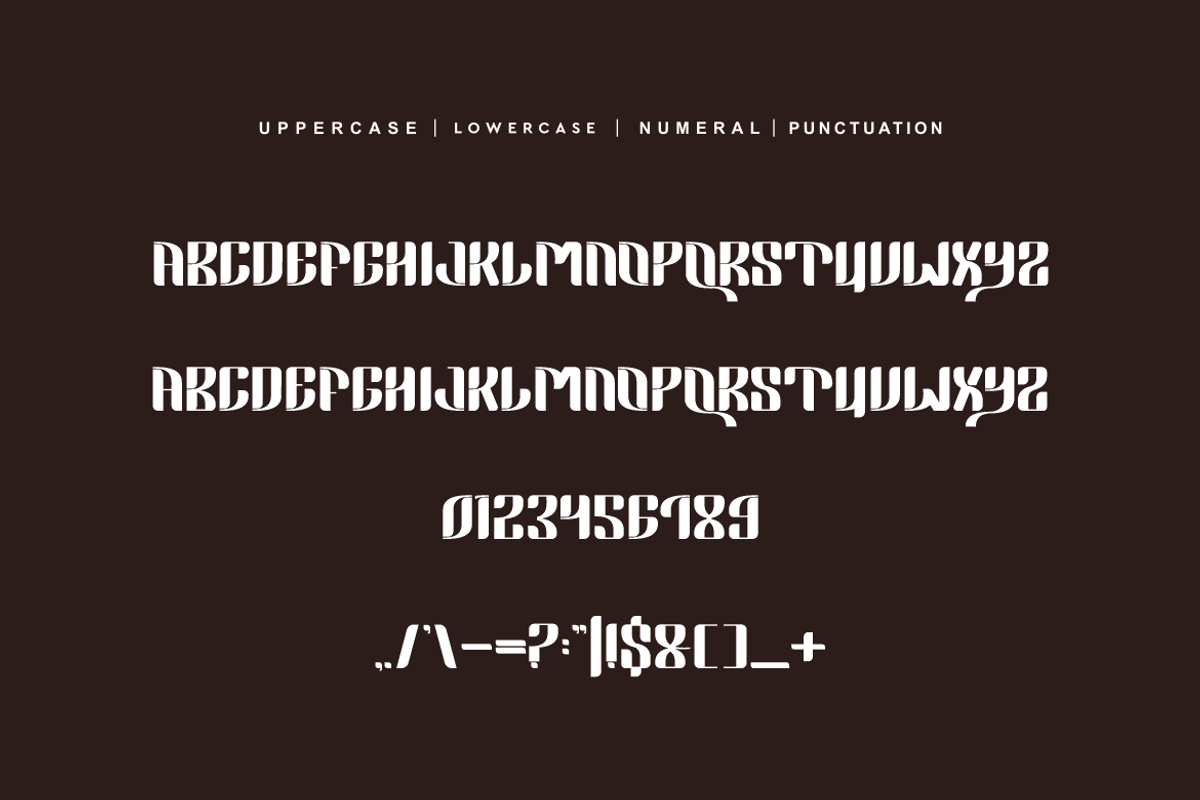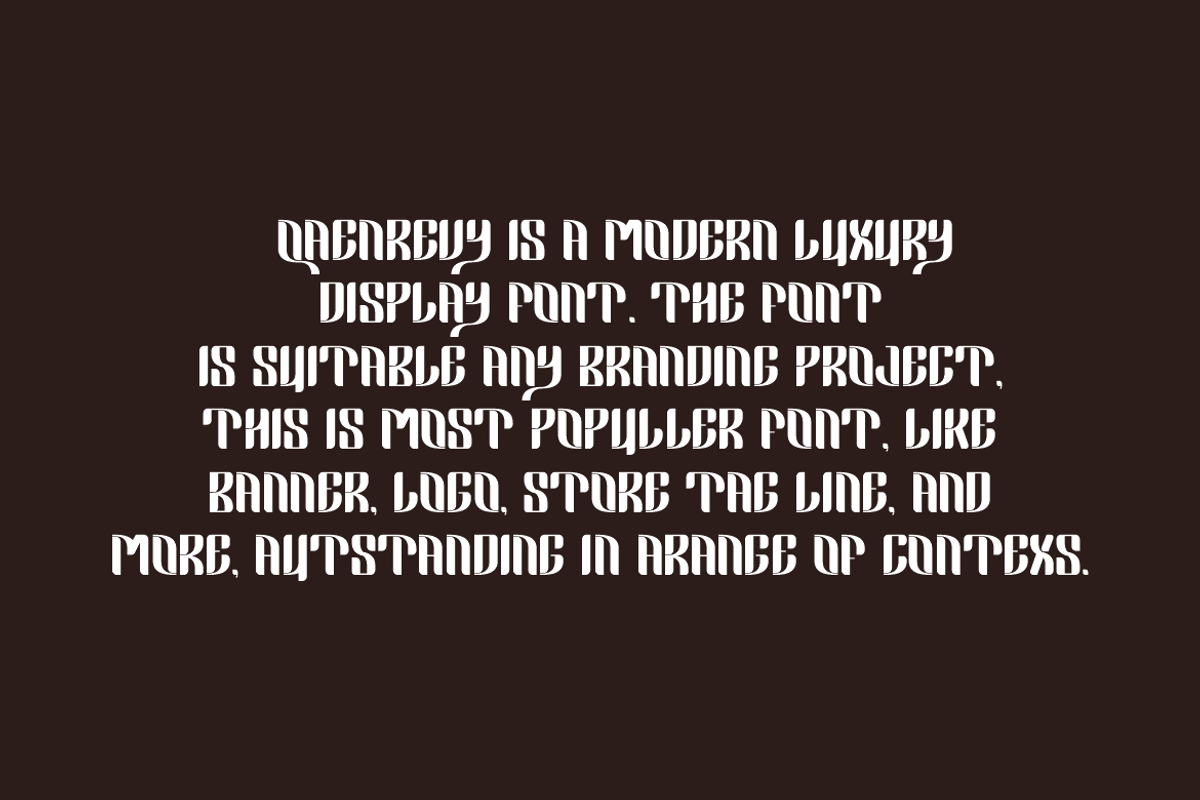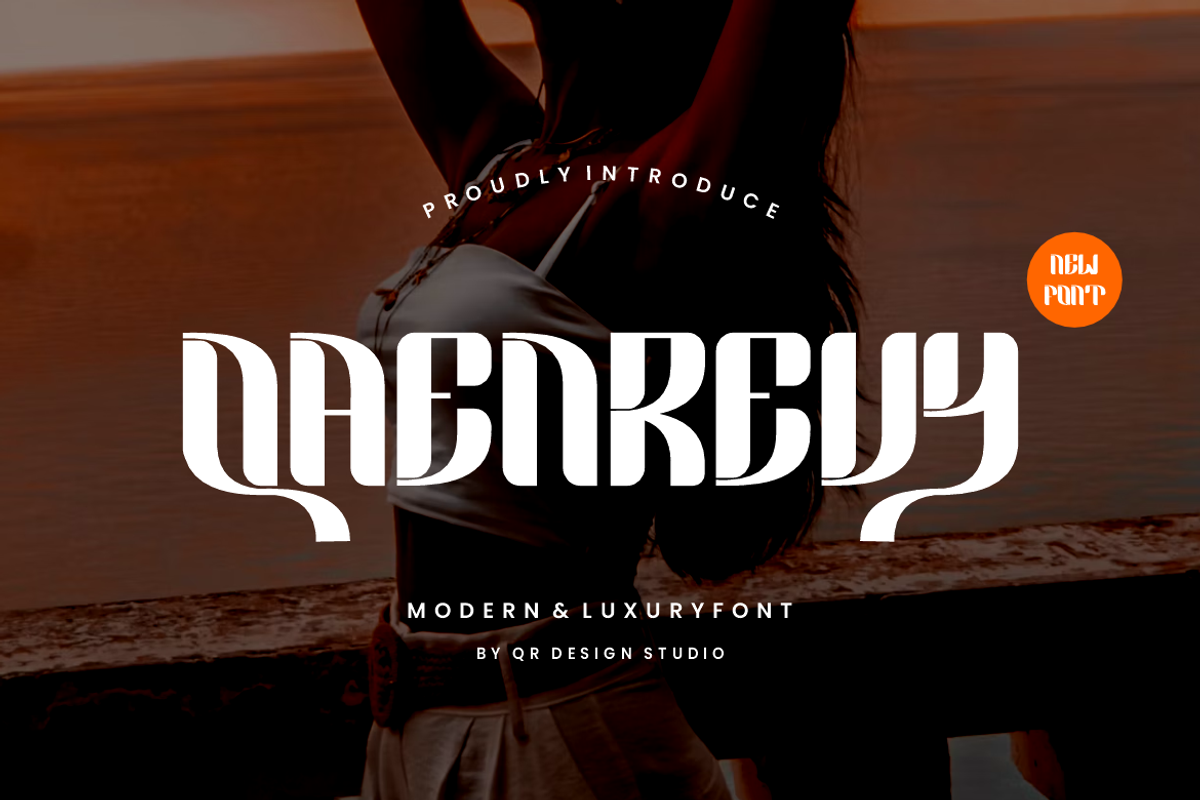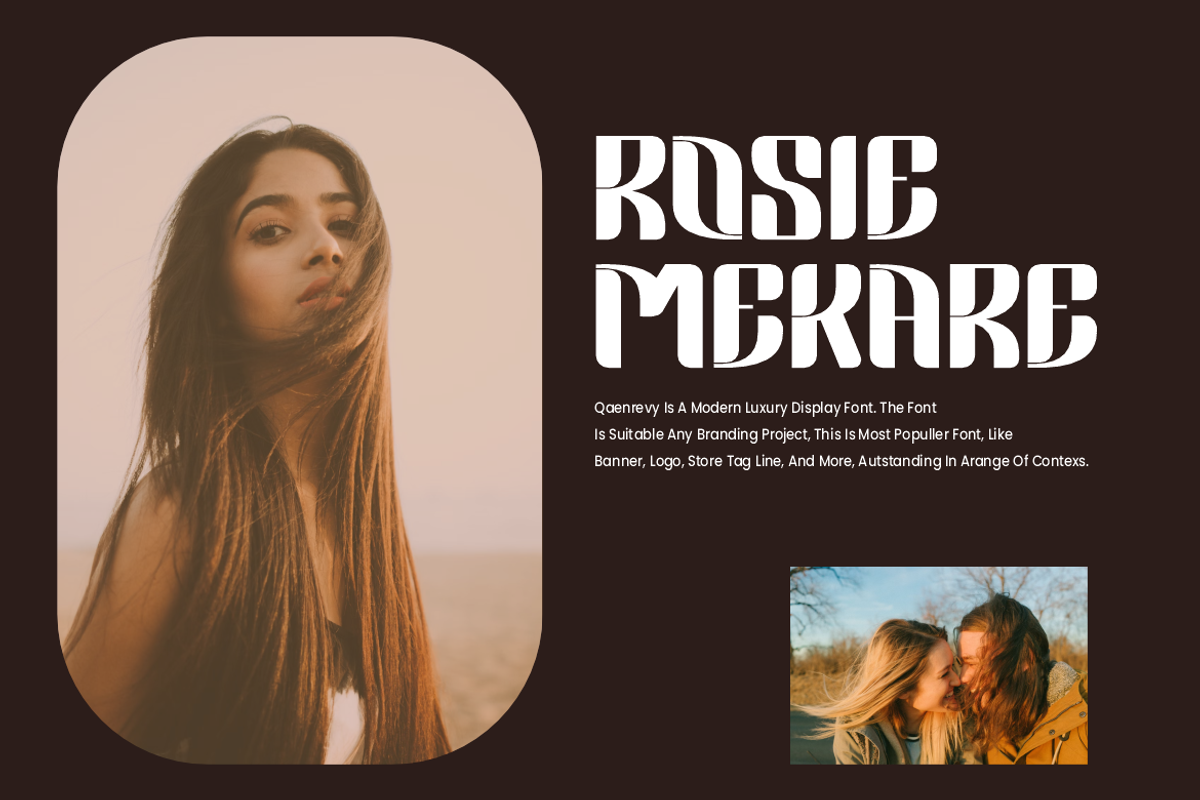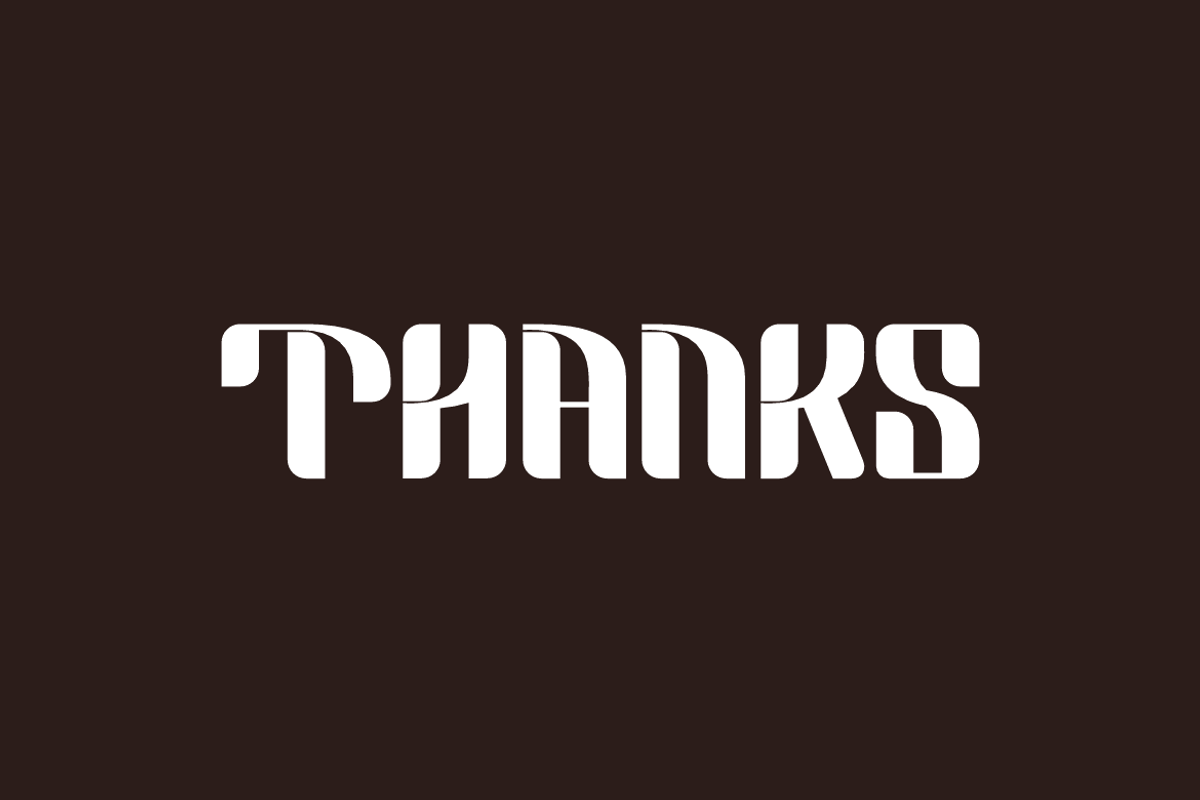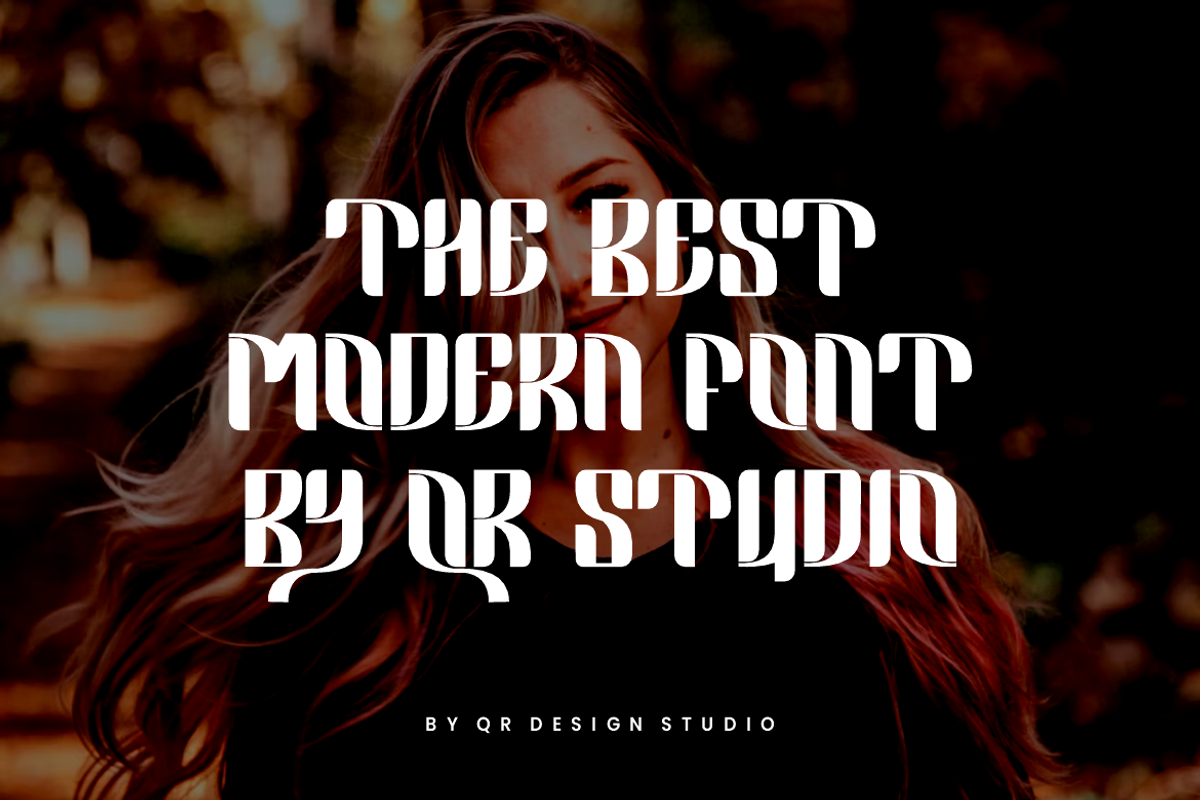
Qaenrevy - Modern & Luxury Font
Qaenrevy Font is a modern and authentic display font. The font is suitable for any branding project like poster, logo, sport, and many more. Outstanding in a wide range of contexts.